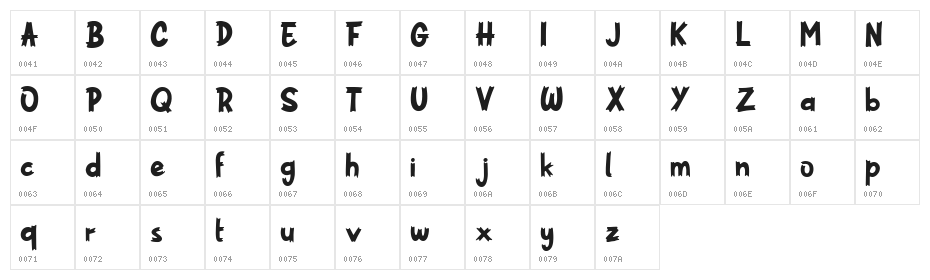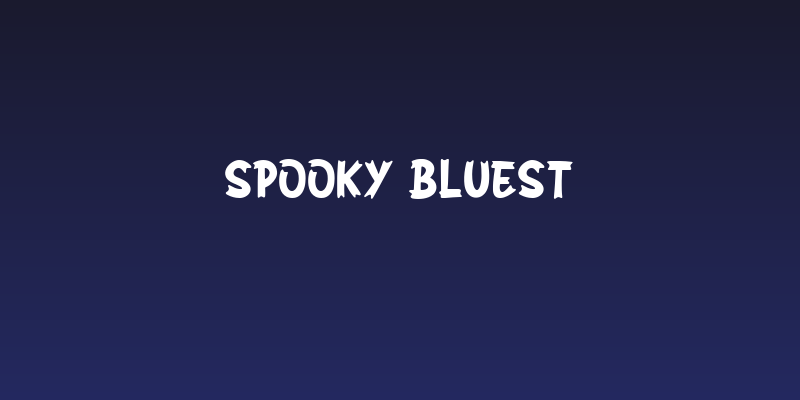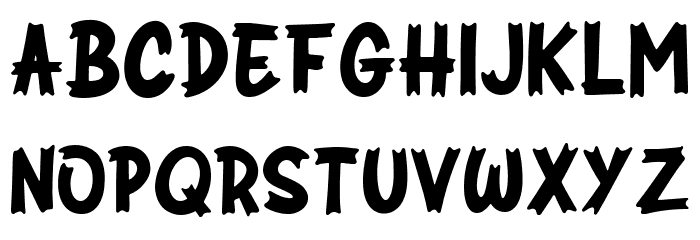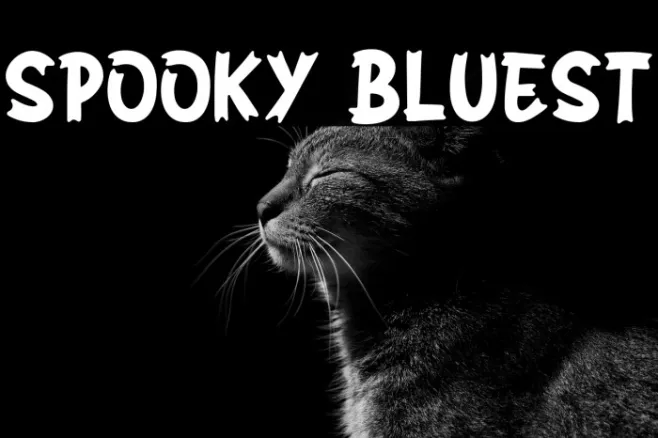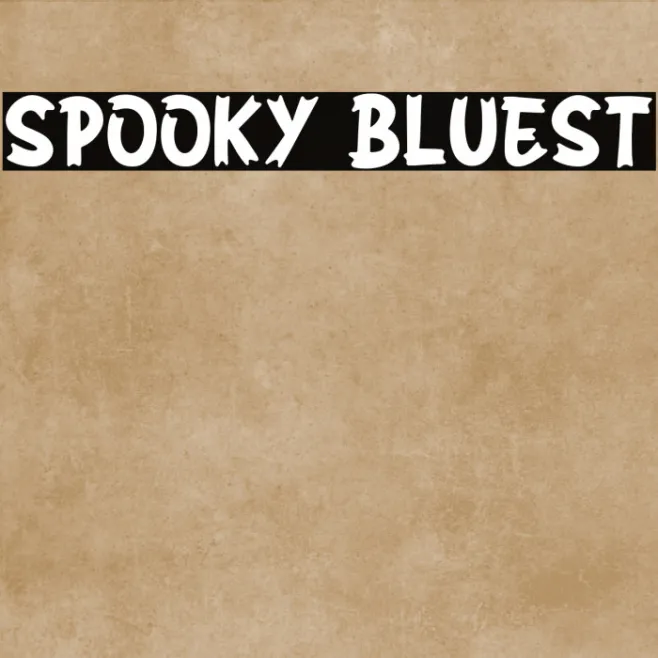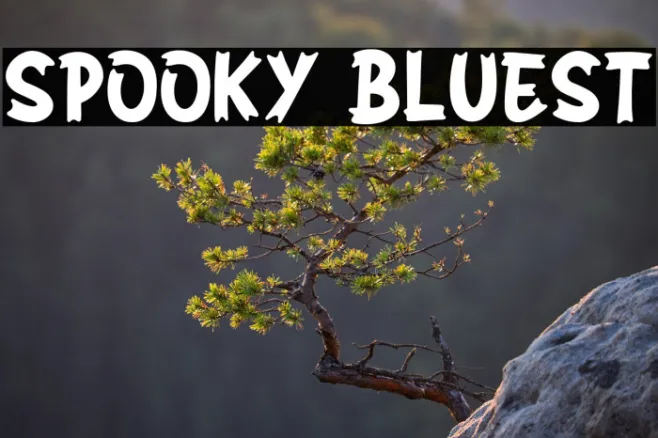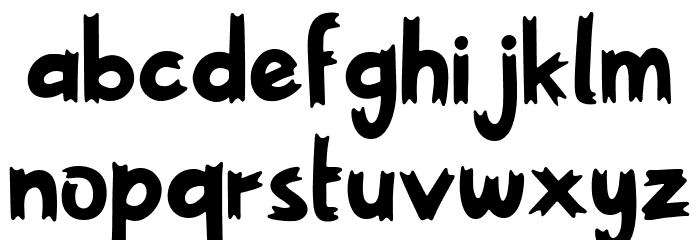
SPOOKY BLUEST Font
SPOOKY BLUEST Description
This font features a bold and playful design with a spooky, Halloween-inspired aesthetic. The characters are slightly irregular, giving them a hand-drawn appearance that adds to their charm. The uppercase and lowercase letters maintain a consistent style, with exaggerated serifs and strokes that create a sense of movement and energy. The numbers and special characters follow the same whimsical design, making this font suitable for themed projects. Its unique style is perfect for capturing attention and conveying a fun, eerie vibe.
| Proposed Projects | Ideal for Halloween-themed posters, party invitations, children's books, and playful branding. |